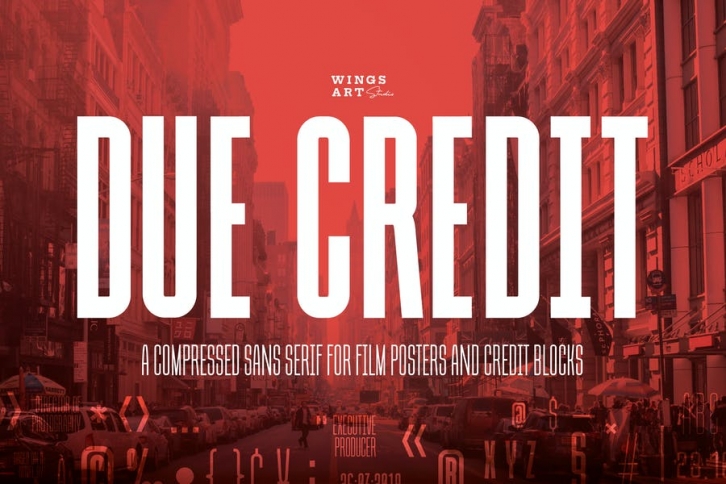
Film poster designers use the term 'credit block' to describe the compressed area of text that displays the contractual cast and crew information for the film they are marketing. Often lost at the bottom of the poster, i've designed Due Credit to be as legible as possible while retaining that classic 'movie' feel.
Supplied in a variety of weights, Due Credit also works great for creating bold titles sequences and quotes, and even comes with a horror genre inspired style just in time for Halloween!
- Due Credit Version One and Two
- Uppercase Characters
- Lowercase Characters (all capitals)
- Light, Regular, Bold and Extra Bold Weights
- Additional Cast and Crew Glyphs (simply drop in crew titles in one click)
- Additional 'Horror' genre style with Alternatives